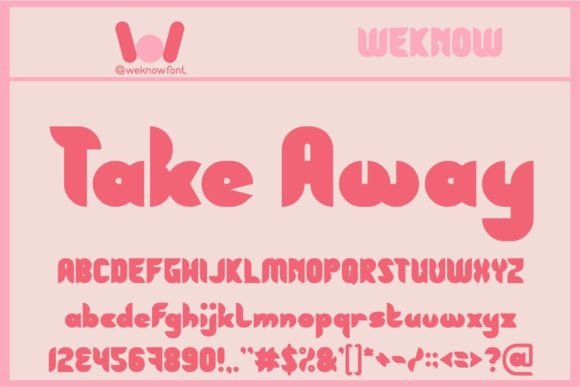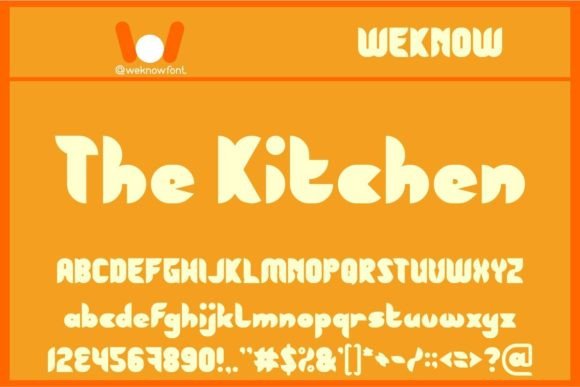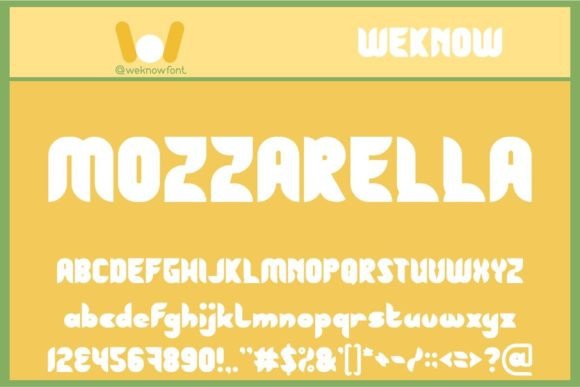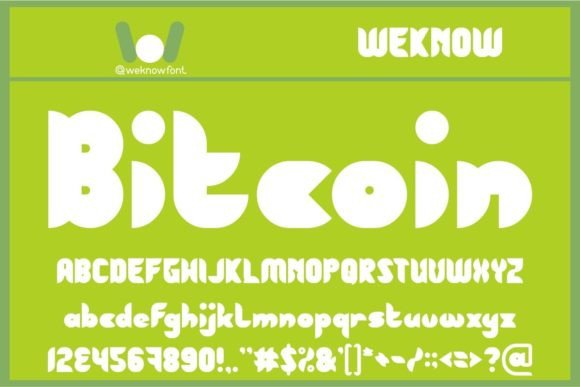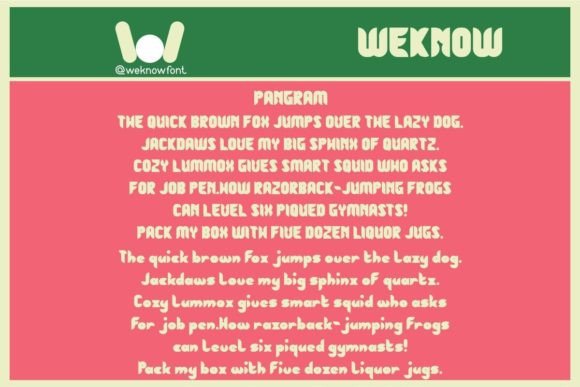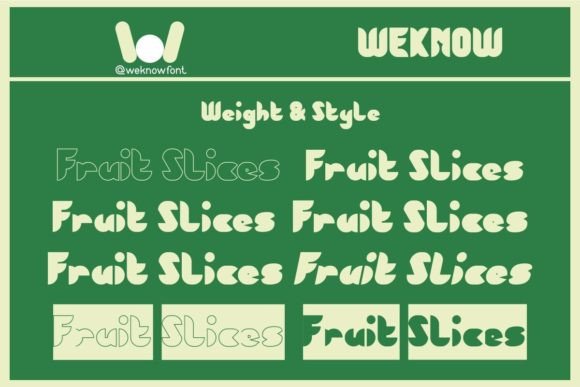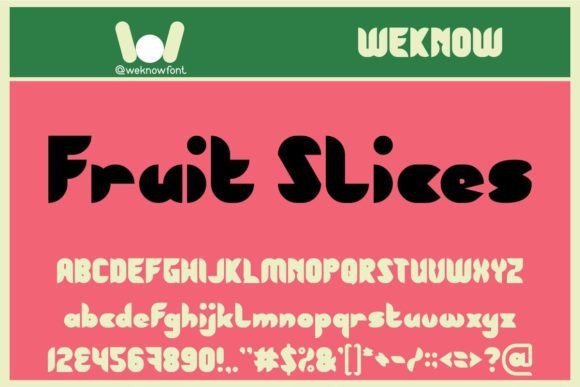
Fruit Slices Font: The Perfect Addition to Your Design Projects
Are you a designer or crafter looking for a unique and eye-catching font to elevate your creative projects? Look no further than Fruit Slices Font, a fancy display font that is perfect for a wide range of applications. In this article, we’ll take a closer look at Fruit Slices Font and explore its features, benefits, and uses.
What is Fruit Slices Font?
Fruit Slices Font is a stylish and modern display font that is designed to make a statement. Its unique and creative design makes it perfect for use in a variety of projects, from logos and branding to headlines and posters. The font features a bold and eye-catching style that is sure to grab attention and leave a lasting impression.
Key Features of Fruit Slices Font
Fruit Slices Font has several key features that make it an excellent choice for designers and crafters. Some of its notable features include:
- Unique Design: Fruit Slices Font has a distinctive and creative design that sets it apart from other fonts.
- Bold and Eye-Catching: The font features a bold and eye-catching style that is perfect for making a statement.
- Versatile: Fruit Slices Font is suitable for use in a wide range of projects, from logos and branding to headlines and posters.
- Easy to Read: Despite its bold and creative design, Fruit Slices Font is easy to read and understand.
Benefits of Using Fruit Slices Font
There are several benefits to using Fruit Slices Font in your design projects. Some of the most significant advantages include:
- Grabs Attention: The bold and eye-catching design of Fruit Slices Font makes it perfect for grabbing attention and making a statement.
- Adds Creativity: The unique and creative design of Fruit Slices Font adds a touch of creativity and originality to your design projects.
- Versatile: Fruit Slices Font is suitable for use in a wide range of projects, making it a versatile addition to your font collection.
- Easy to Use: Fruit Slices Font is easy to use and can be easily integrated into your design projects.
Use Cases for Fruit Slices Font
Fruit Slices Font is suitable for use in a wide range of projects, including:
- Logos and Branding: Fruit Slices Font is perfect for creating unique and eye-catching logos and branding materials.
- Headlines and Posters: The bold and eye-catching design of Fruit Slices Font makes it perfect for use in headlines and posters.
- Apparel Industry: Fruit Slices Font is suitable for use in the apparel industry, including t-shirts, hoodies, and other clothing items.
- Music and Movie: Fruit Slices Font is perfect for use in music and movie projects, including album covers and movie posters.
- Games and Comics: The unique and creative design of Fruit Slices Font makes it perfect for use in games and comics.
- Websites and Social Media: Fruit Slices Font is suitable for use on websites and social media platforms, including YouTube and Instagram.
Tips for Using Fruit Slices Font
Here are a few tips for using Fruit Slices Font in your design projects:
- Use it Sparingly: Fruit Slices Font is a bold and eye-catching font, so it’s best to use it sparingly to avoid overwhelming your design.
- Pair it with Other Fonts: Fruit Slices Font pairs well with other fonts, so consider using it in combination with a simpler font to create visual interest.
- Experiment with Colors: Fruit Slices Font looks great in a variety of colors, so don’t be afraid to experiment and find the perfect color for your design.
Fruit Slices Font is a unique and eye-catching font that is perfect for designers and crafters looking to add a touch of creativity and originality to their design projects. With its bold and eye-catching design, versatility, and ease of use, Fruit Slices Font is an excellent addition to any font collection. Whether you’re working on a logo, headline, poster, or any other design project, Fruit Slices Font is sure to make a statement and leave a lasting impression.